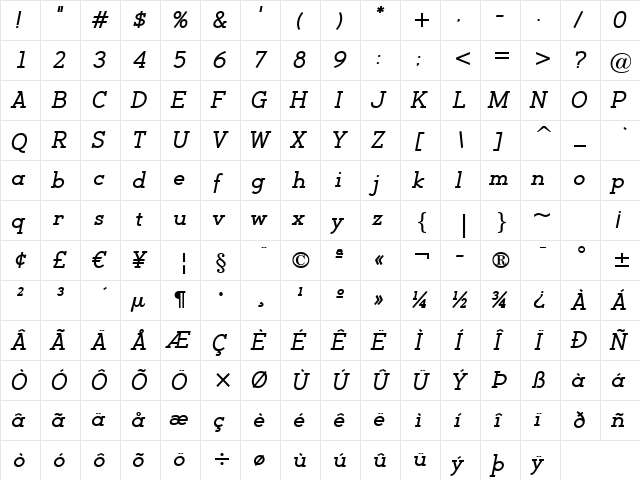
BacktalkSerif BTN BoldOblique
Design Context for BacktalkSerif BTN Typeface
BacktalkSerif BTN brings classic typographic sensibility to the table — its serifs and measured letterforms reflect centuries of print heritage. The slanted form adds forward momentum and visual energy. Its bold stroke weight gives it real presence on the page.